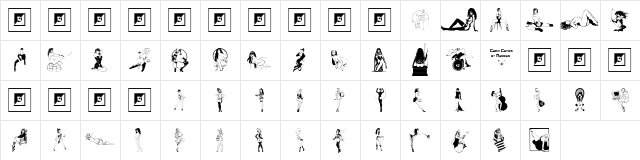
Comix Cuties Regular
Design Context for Comix Cuties Typeface
Comix Cuties is a composed and adaptable typeface that performs quietly and consistently across a wide range of design contexts.